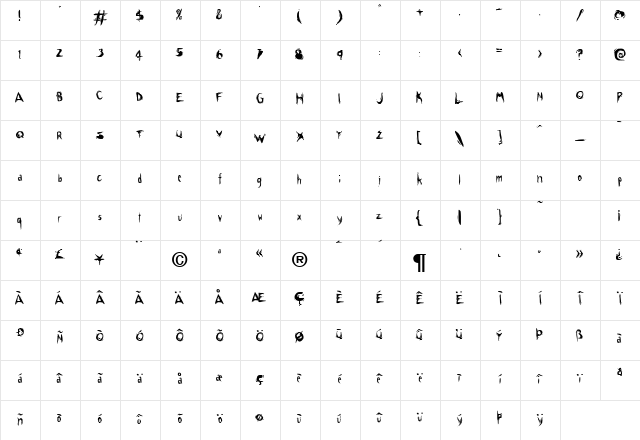
Complete Pillowbiter Normal glyph index. Displaying only characters natively supported by Pillowbiter Normal font.
Pillowbiter is a composed and adaptable typeface that performs quietly and consistently across a wide range of design contexts.
Pro Tip: Use Pillowbiter in both headline and body roles to test its range before committing to a single application.